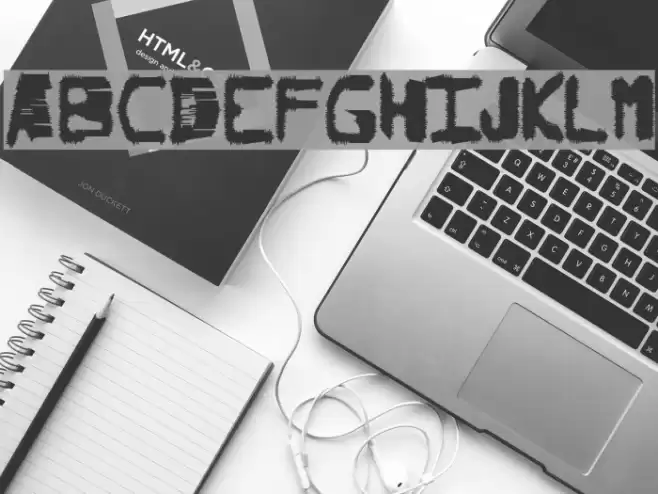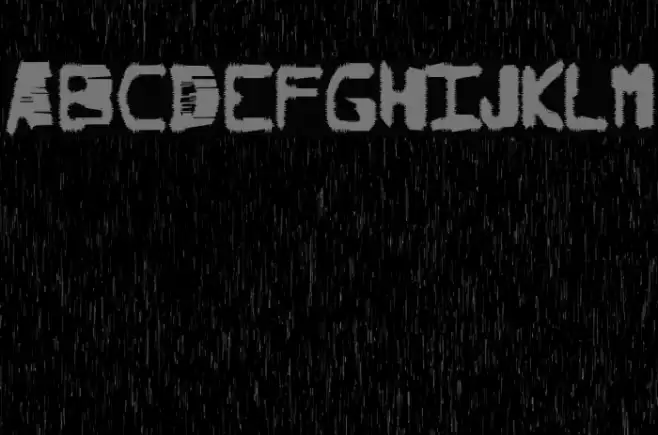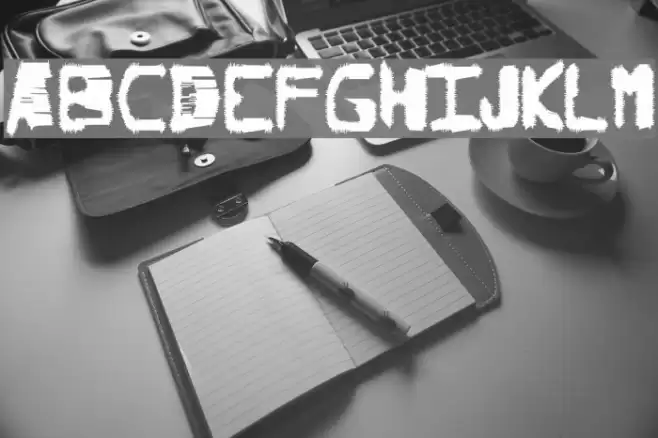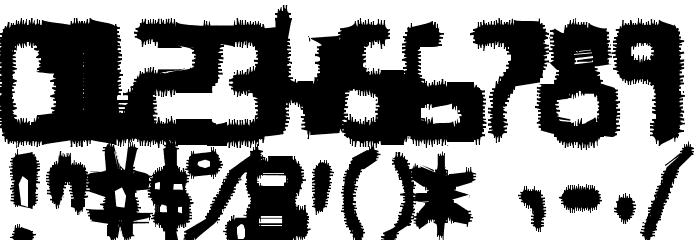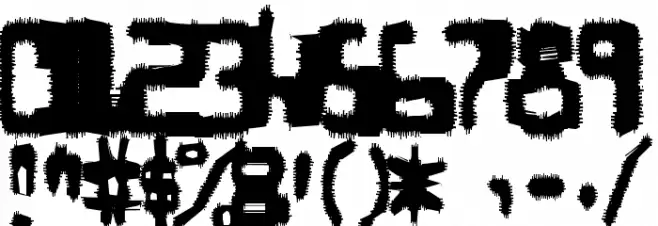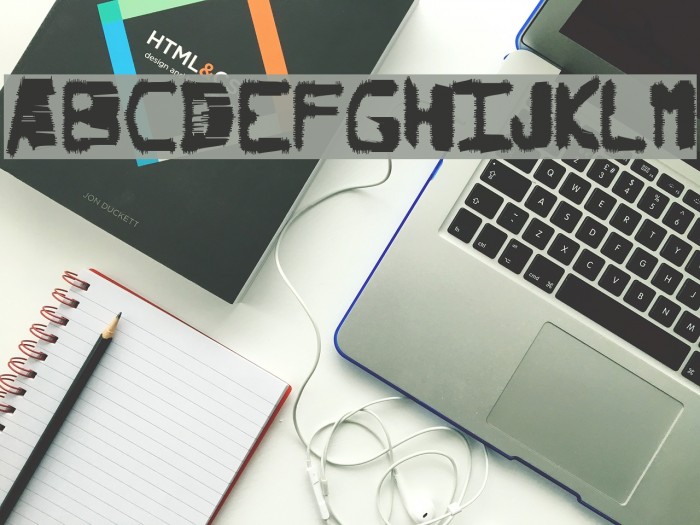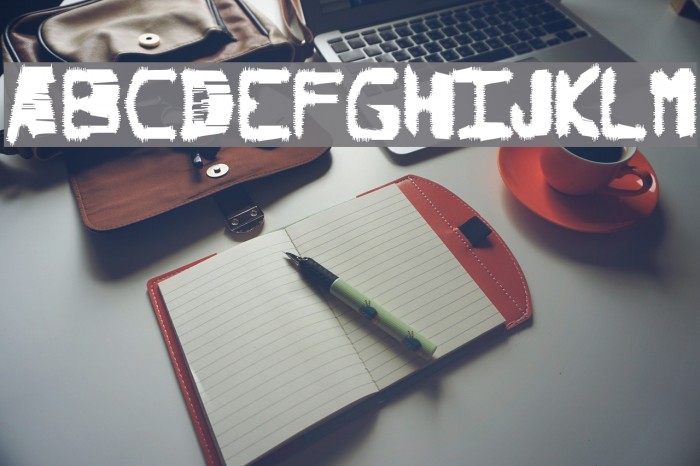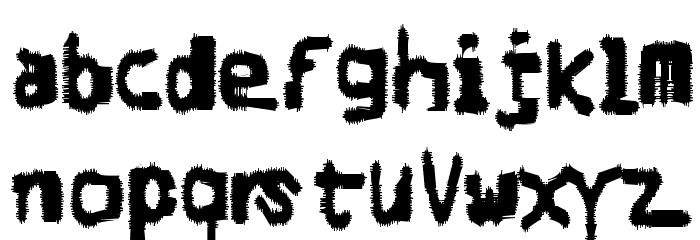
Degraded Chip Creep Font
Degraded Chip Creep Description
This font features a highly distinctive and edgy design, characterized by its jagged, rough edges and bold, impactful appearance. The letters appear as if they have been eroded or distressed, giving them a unique, grunge-like aesthetic. The uppercase and lowercase letters maintain a consistent style, with each character exhibiting a sense of movement and energy. The numbers and special characters follow the same design principles, ensuring a cohesive look across all glyphs. This font's unconventional style makes it stand out, ideal for projects that require a bold, statement-making typeface.
A bold, jagged font with a distressed, grunge aesthetic from Uncategorized fonts.
- Overall Style: Grunge, Edgy, Distressed